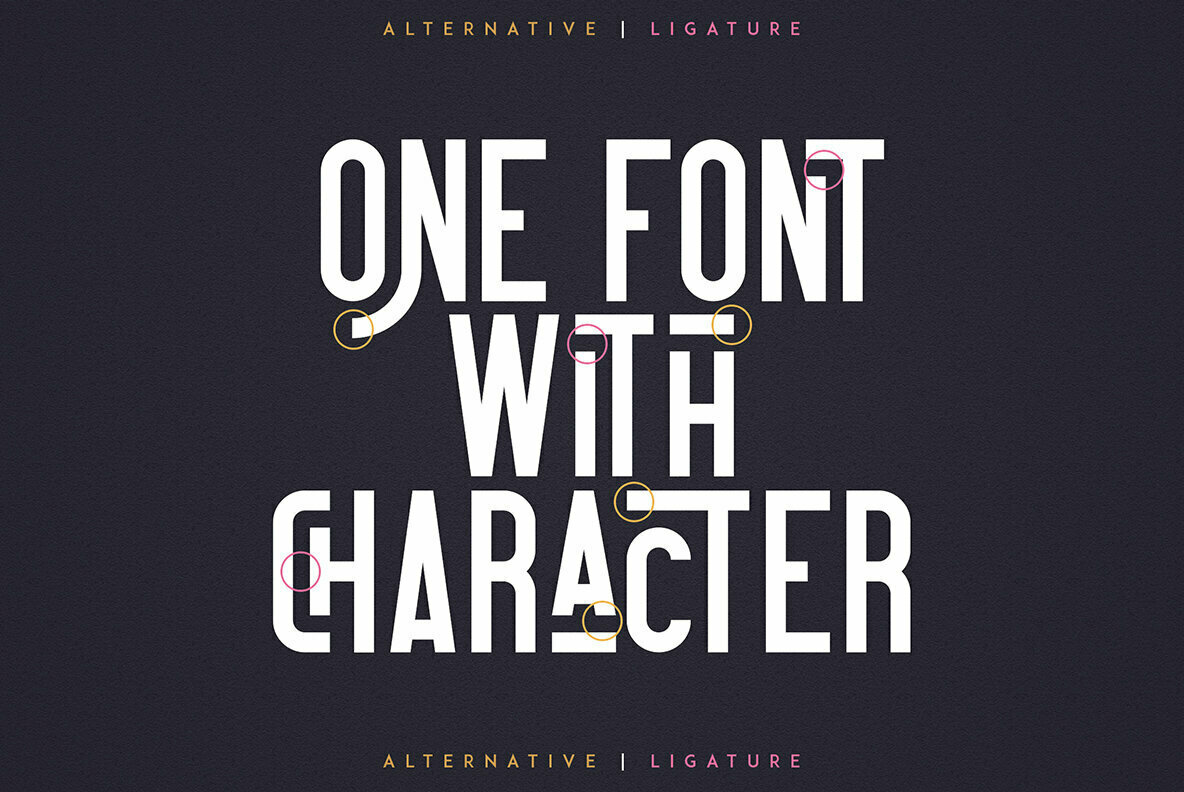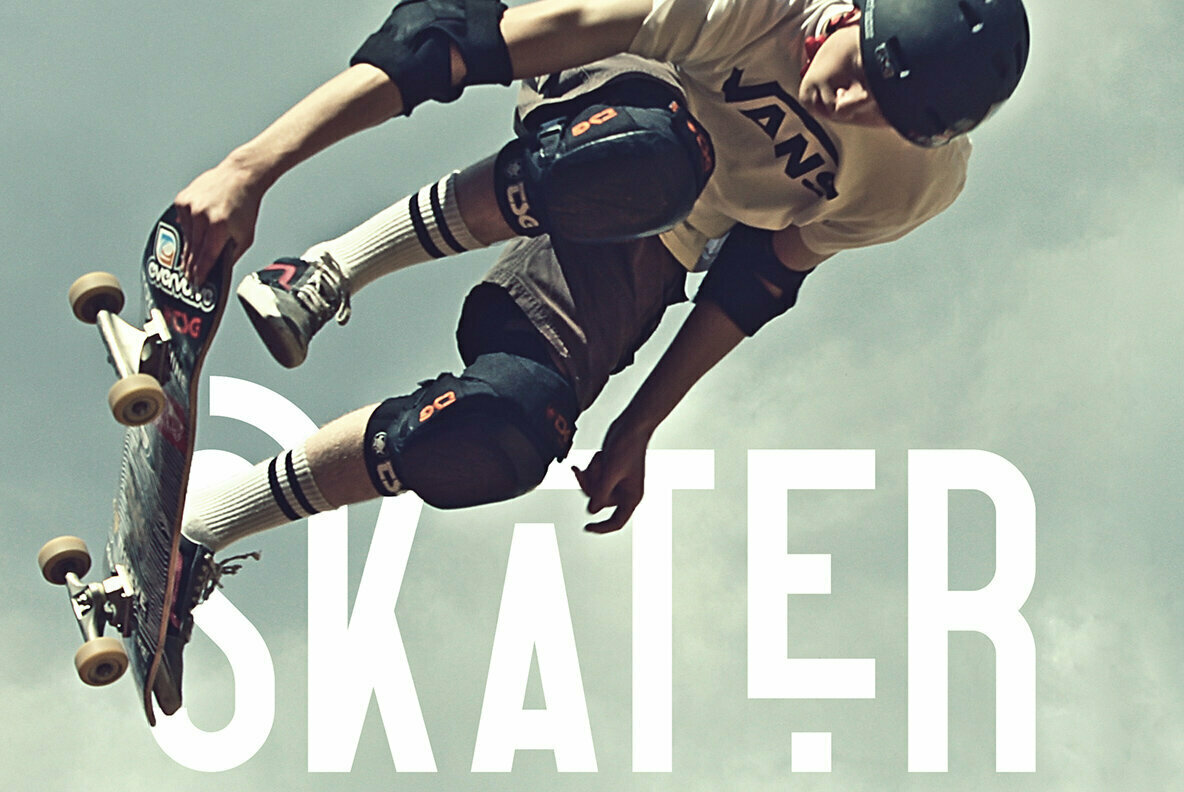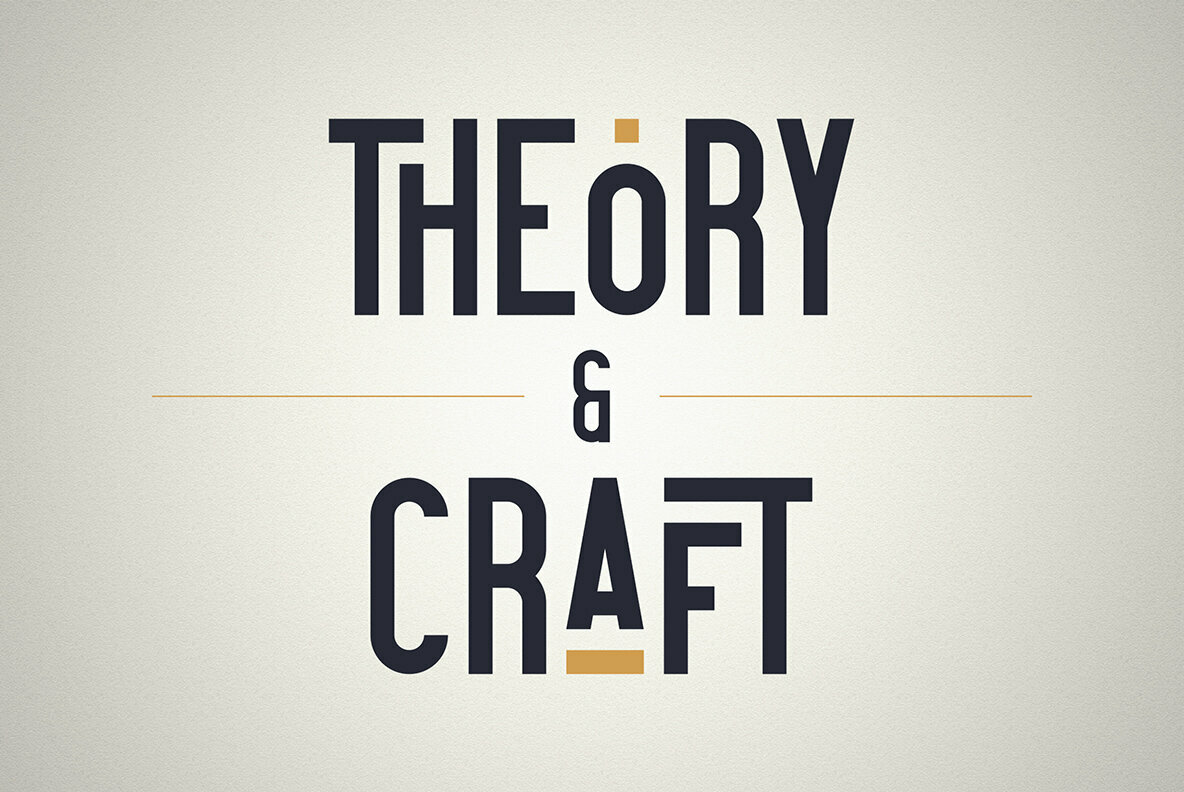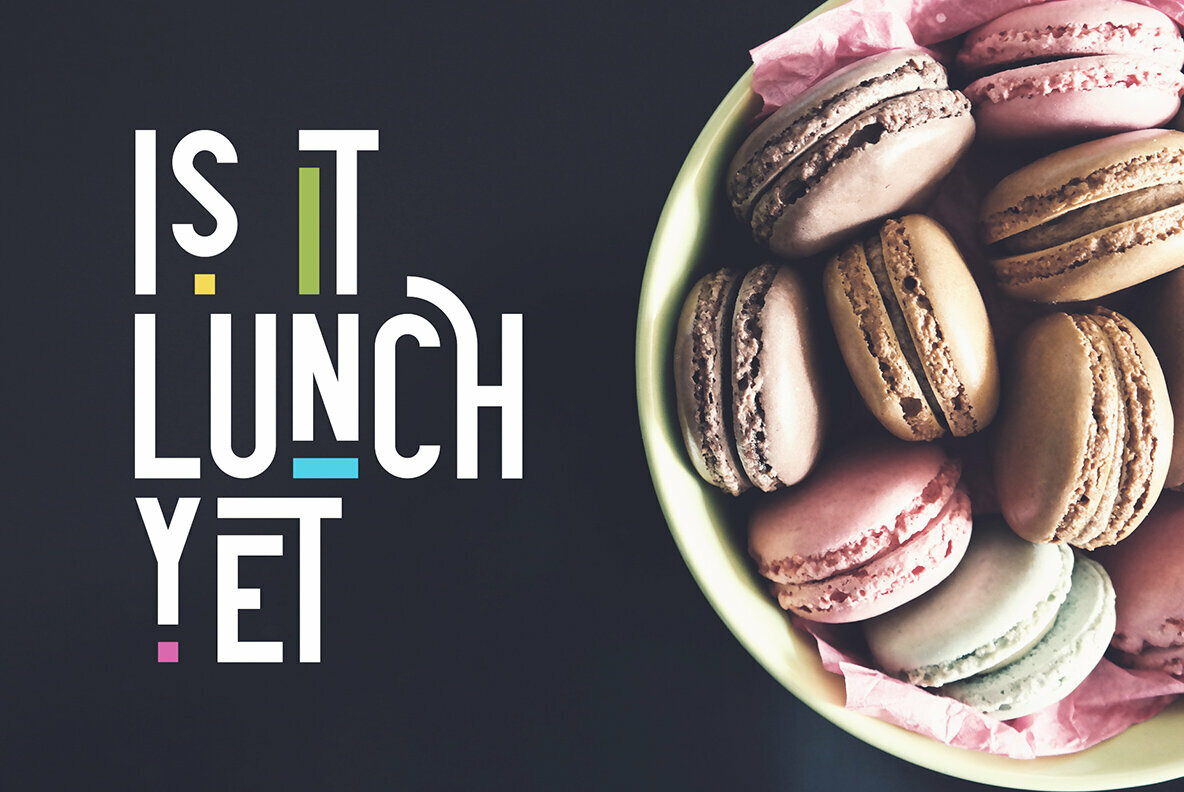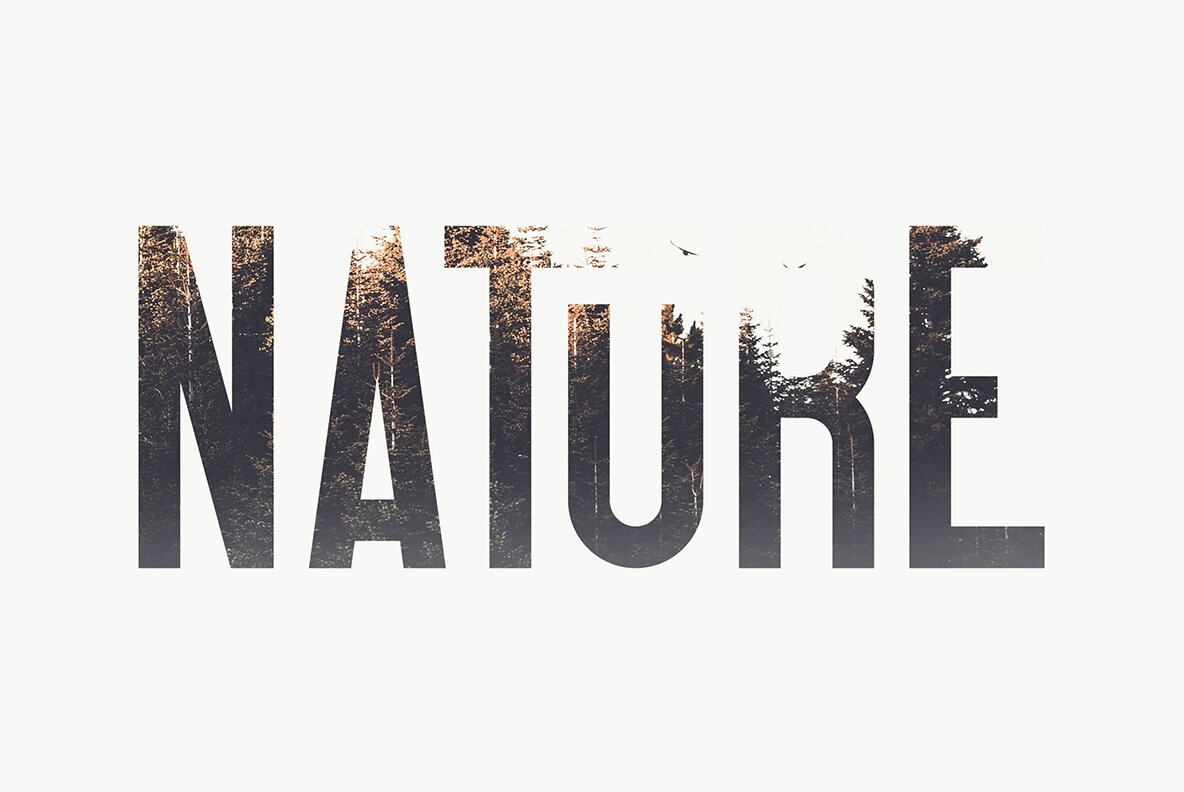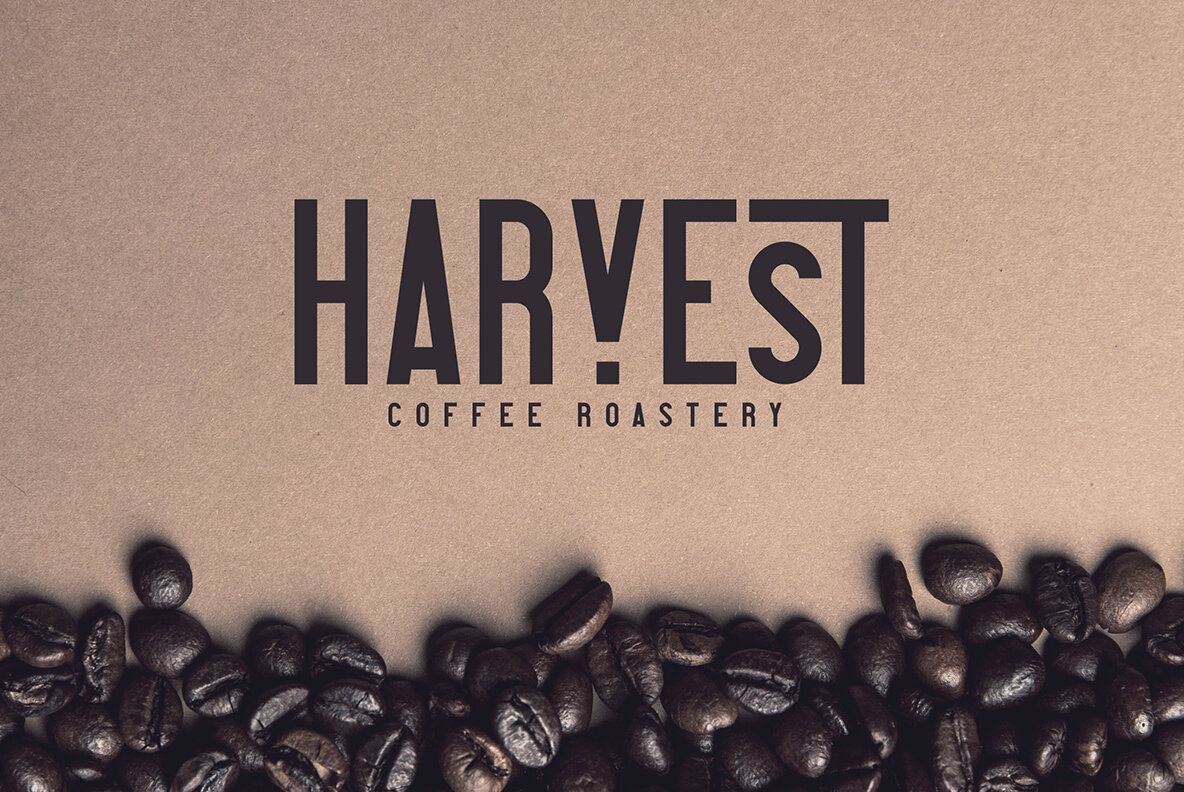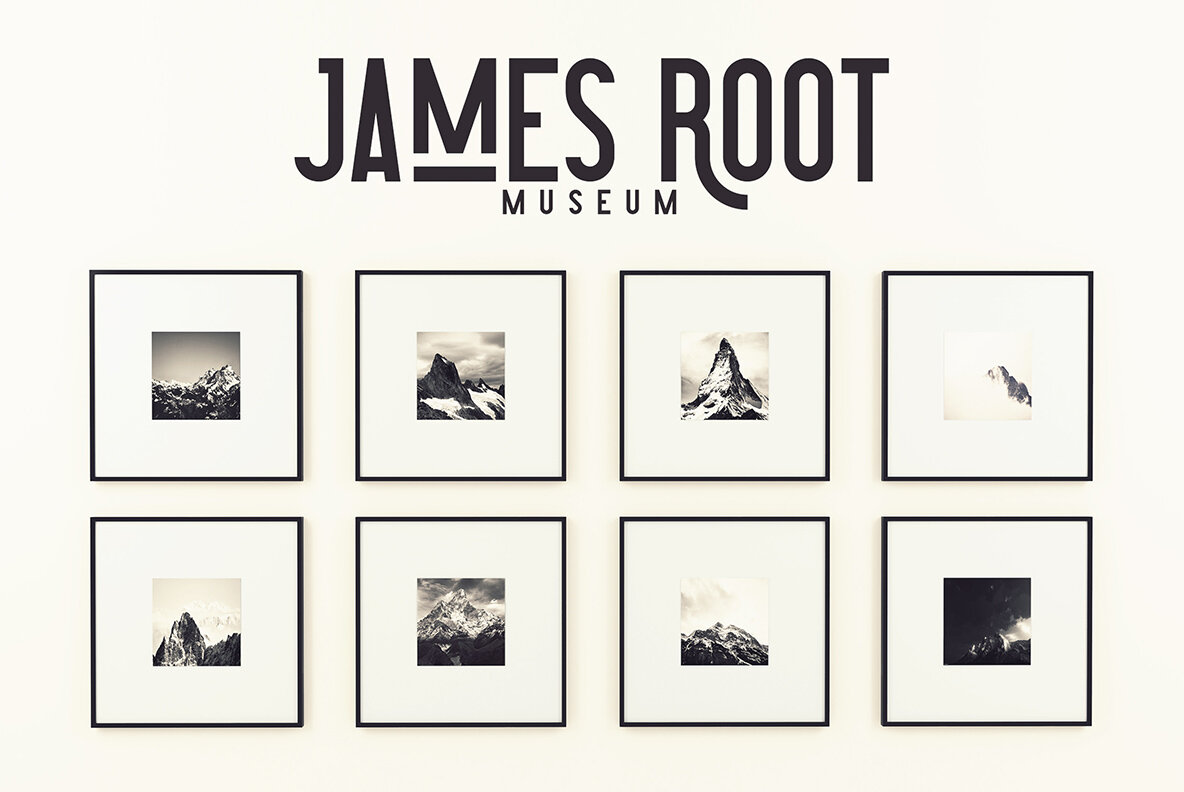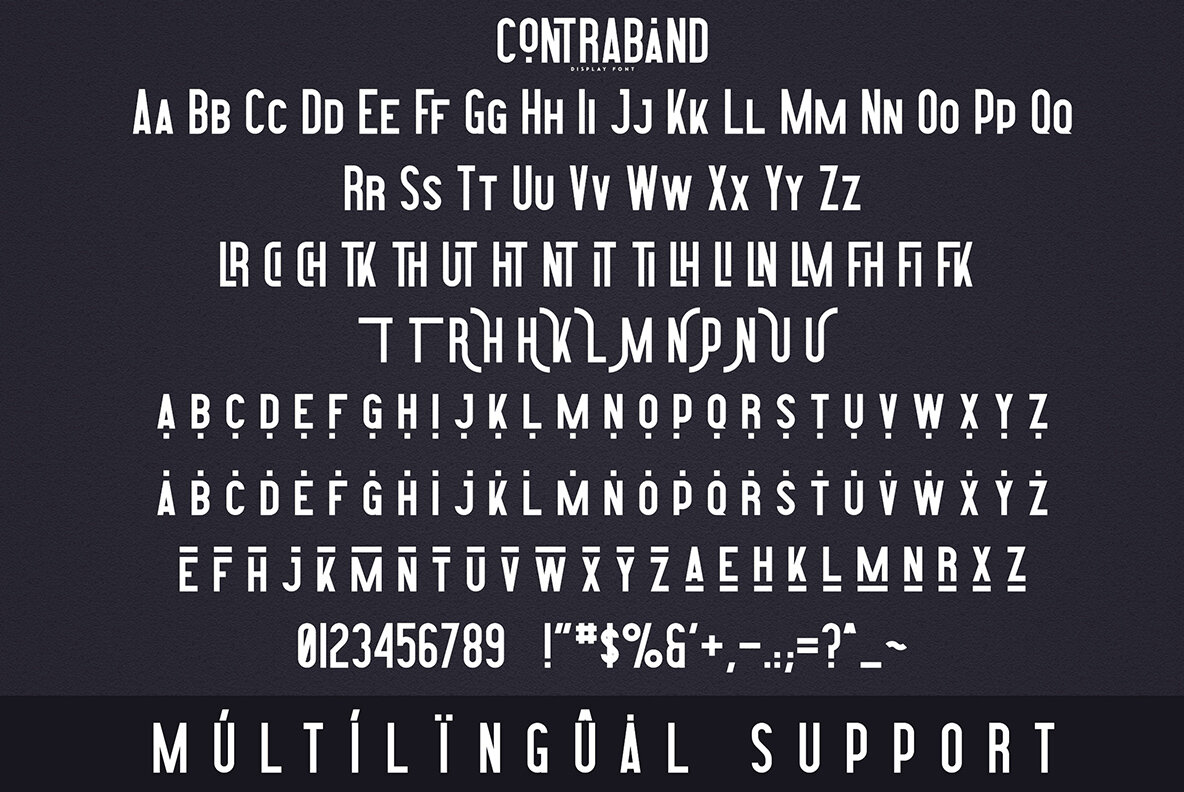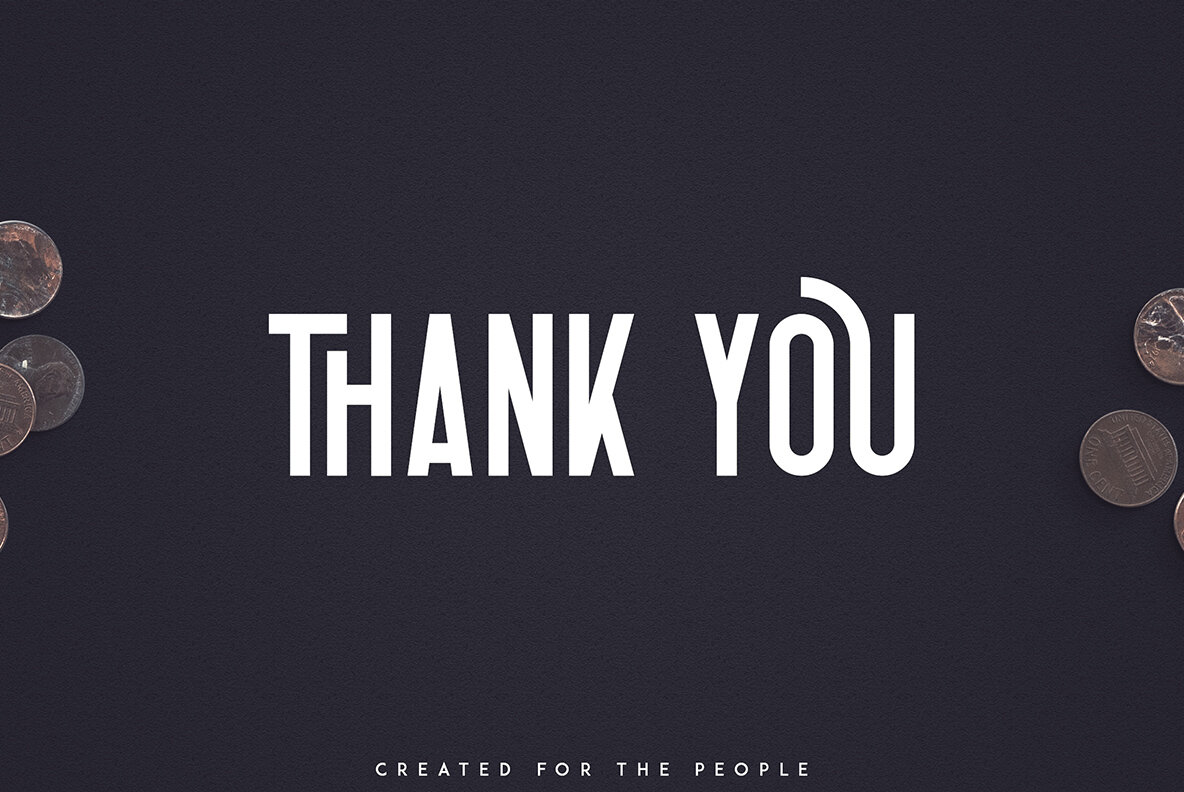
Contraband Font
Contraband
Contraband is a vintage, clean display font with tons of alternative glyphs, ligatures and multilingual support. It's a very versatile font that works great in large and small sizes. Contraband is perfect for branding projects, home-ware designs, product packaging, magazine headers - or simply as a stylish text overlay to any background image.
- Uppercase, Lowercase, Numeral, Punctuation & Symbol
- Tons of alternative glyphs